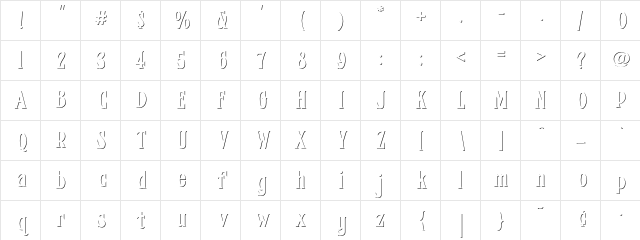
FHA Condensed French Shade NC Regular
Foundry: Michael Adkins & James Striling
Designer: Michael Adkins and James Stirling of the Fontry
Design Context for FHA Condensed French Shade NC
FHA Condensed French Shade NC is a composed and adaptable typeface that performs quietly and consistently across a wide range of design contexts. Its narrow stance lets it pack a punch even in space-constrained designs.
Who designed the FHA Condensed French Shade NC Regular font?